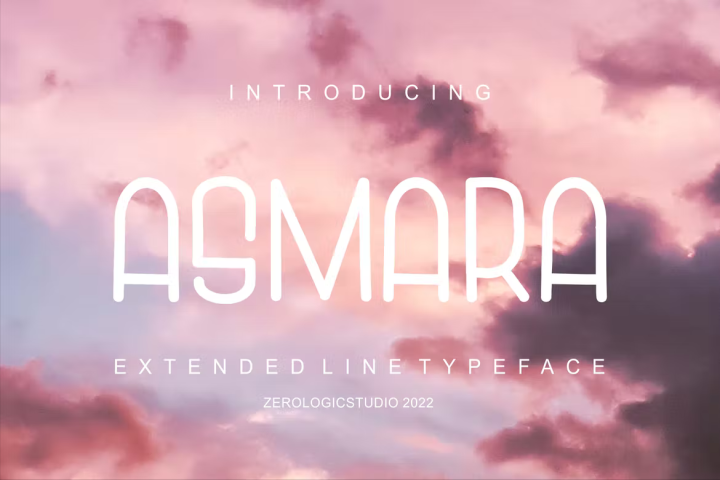
Asmara Extended Font
ASMARA is our new font We Provide You one of the best Stylish Extended font. Best use for awesome display, labeling, clothing, movie sceen, poster, movie title, gigs, album covers, logos, and much more. download and enjoy!